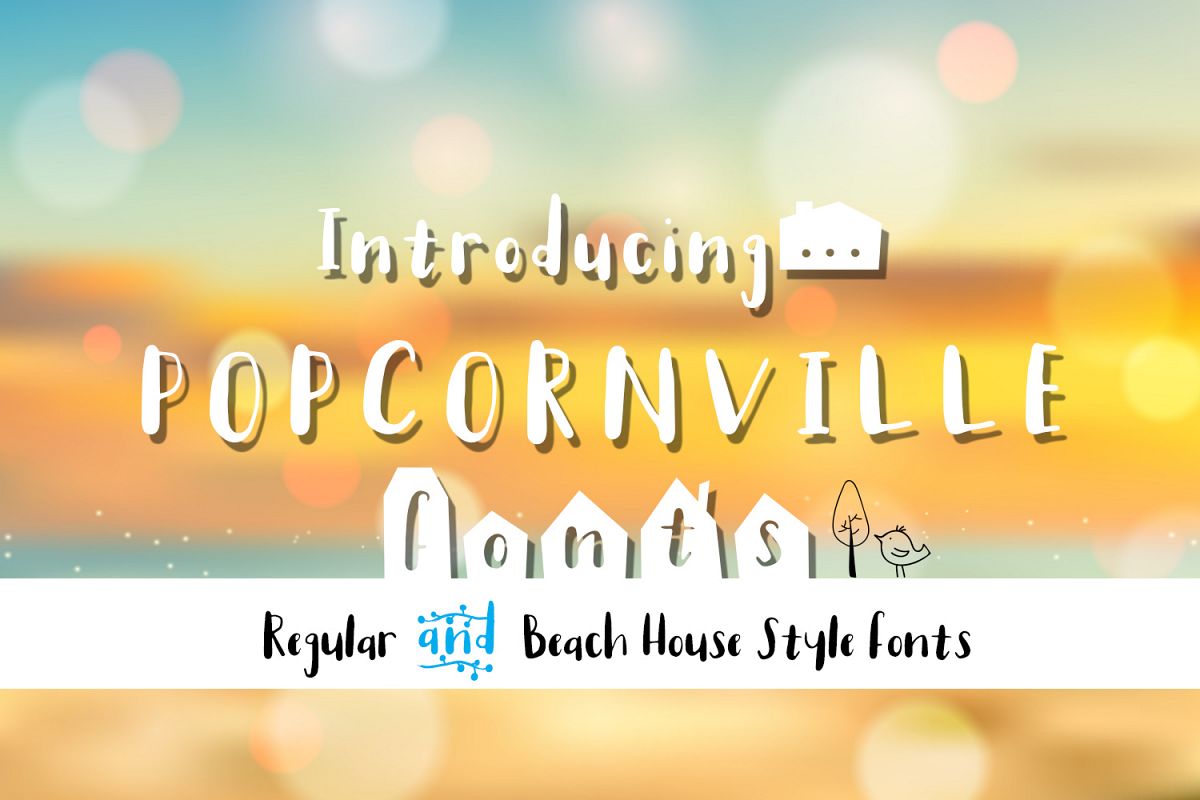
Popcornville font and beach house style - two style fonts
Introducing my lovely "Popcornville" font. It also comes with beach house style font which included hand-drawn ornaments.